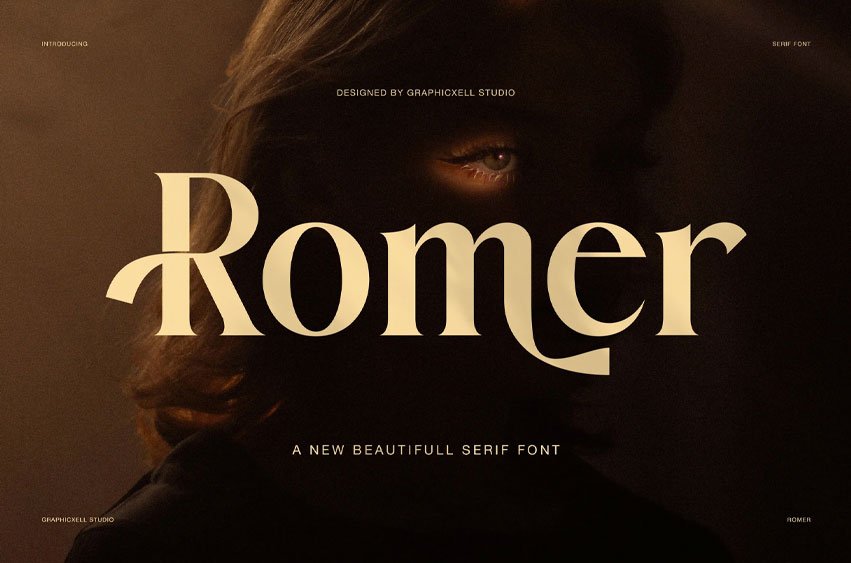
Romer Font Elegant Serif Font is a refined display typeface with a calm, stylish, and modern voice. It blends classic serif structure with soft artistic detail. As a result, it feels graceful, premium, and highly usable for branding work. The overall look is clean at first sight. However, the closer you look, the more charm you find in its curves, terminals, and carefully shaped alternates.
The main letterforms show balanced contrast, sharp serif cuts, and smooth proportions. Moreover, several characters include subtle bends and flowing tails that add movement without making the font feel busy. This balance gives Romer a polished tone. Therefore, it works beautifully in both elegant and modern layouts. The uppercase set feels poised and steady, while the lowercase letters bring warmth and personality.
Romer is clearly made for display use. In the preview examples, it performs very well in architecture branding, recording studio headlines, fashion presentations, furniture layouts, and poetic editorial quotes. Because of its clear structure, large text looks bold and readable. At the same time, the stylish details help logos, titles, and short phrases feel more unique and more expensive.
Another strong feature is the alternate character set. These alternates add visual rhythm and a custom look to names, headlines, and wordmarks. In addition, the punctuation and number styles keep the full font system consistent. So, Romer is not only beautiful, but also practical for brand identity, packaging, posters, social media, and editorial design.
Best uses for Romer
• luxury branding
• logo design
• editorial headlines
• fashion branding
• furniture branding
• interior design branding
• packaging design
• poster titles
• social media graphics
• modern quote layouts
Why designers will love it
Romer Elegant Serif Font helps short text feel elegant, clear, and memorable. Furthermore, it offers decorative alternates without losing readability. While many serif fonts feel too formal or too plain, Romer feels fresh, balanced, and expressive. Because of that, it fits both timeless and trend-driven projects.
If you need an elegant serif font for modern branding and standout display work, Romer is a strong choice. It gives words a polished voice, and it adds quiet luxury to any layout. In the end, Romer is a beautiful serif font that brings grace, style, and function together.